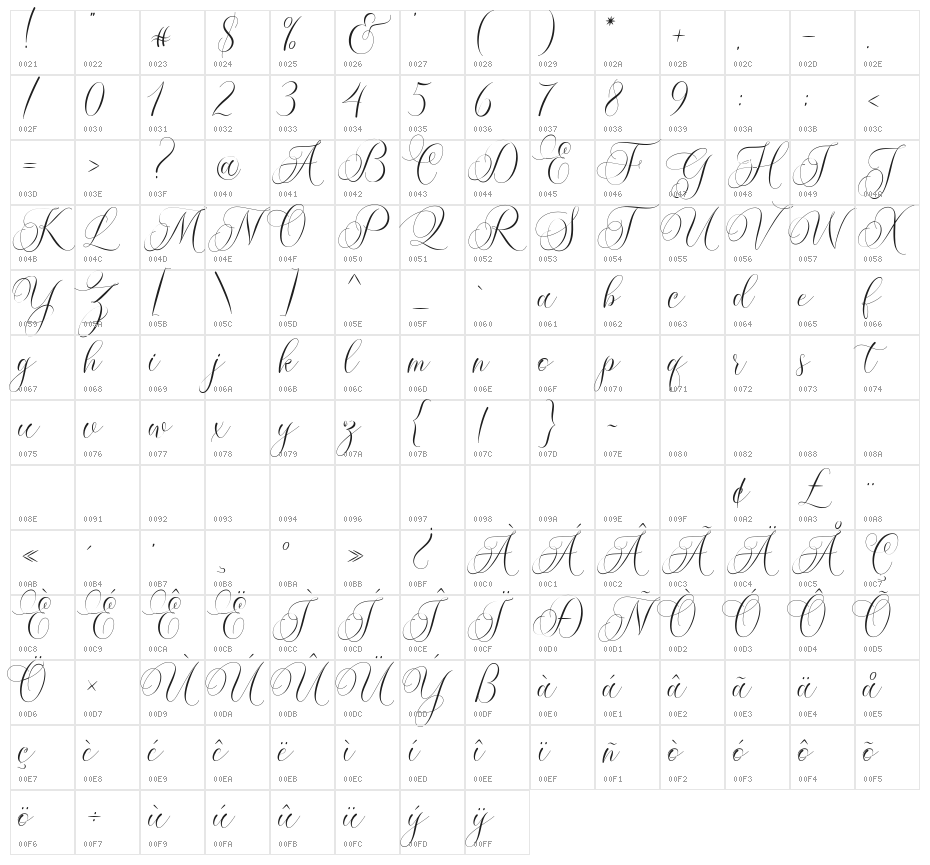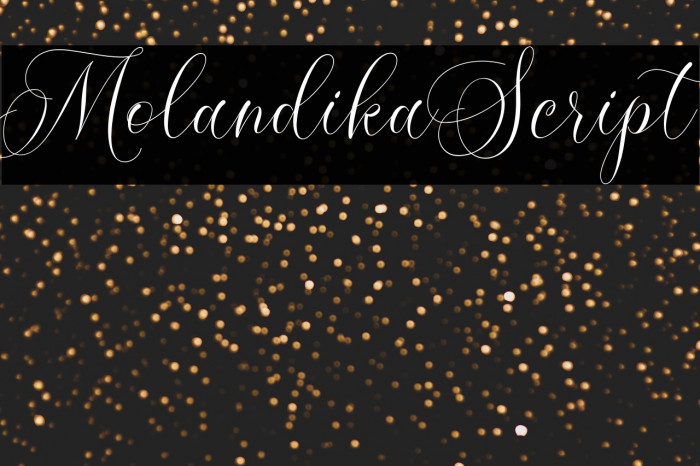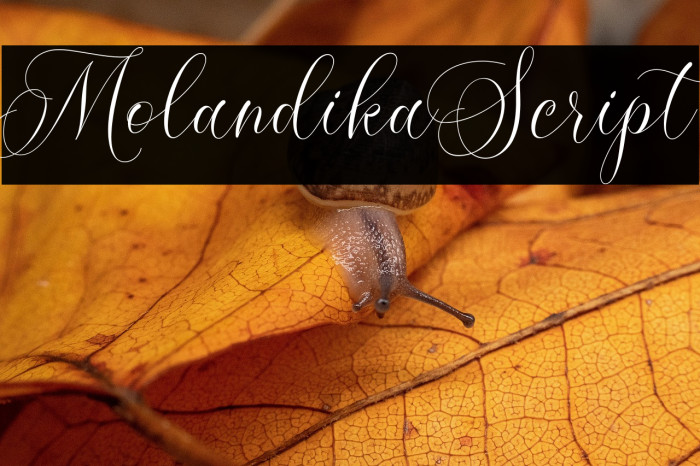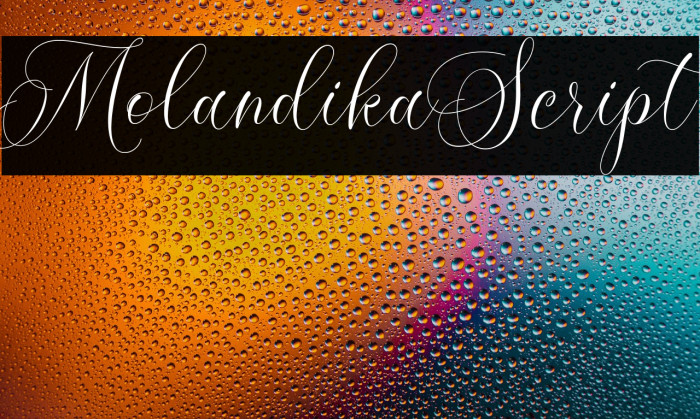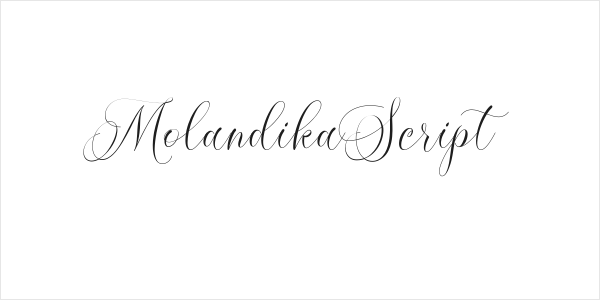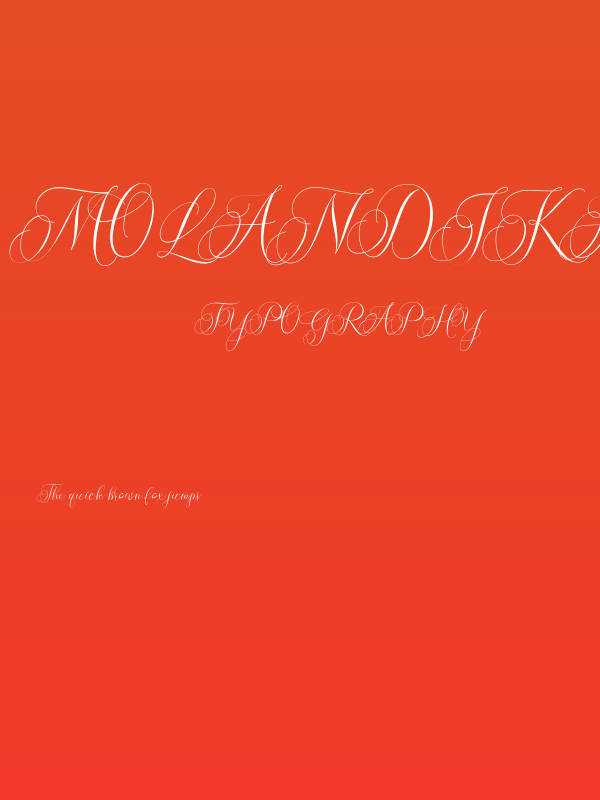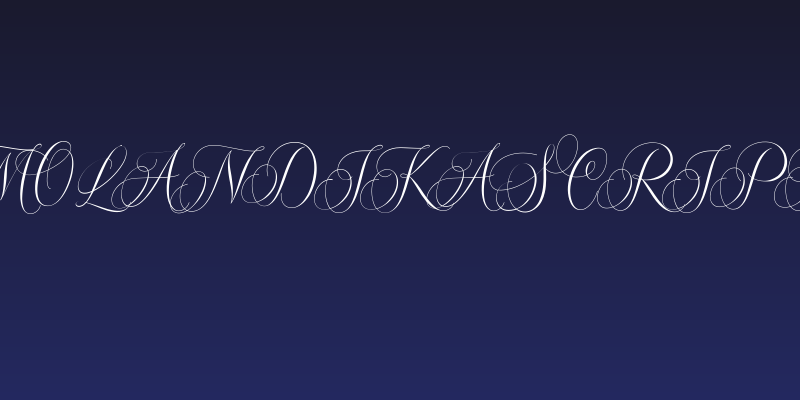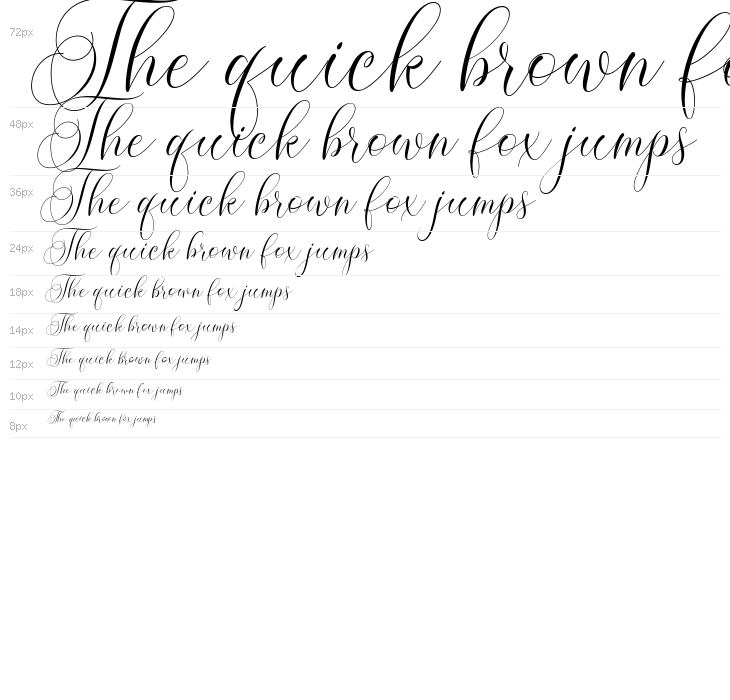
MolandikaScript Font
MolandikaScript Description
This elegant script font features intricate, flowing lines that create a sense of sophistication and grace. The uppercase letters are adorned with elaborate swashes and loops, giving them a decorative flair. The lowercase letters maintain a consistent fluidity, with smooth transitions and delicate curves. The numerals are stylishly designed to match the overall aesthetic, while the special characters add a touch of whimsy. This font is perfect for projects that require a touch of elegance and refinement, such as wedding invitations, luxury branding, or high-end product packaging.
| Overall Style | Elegant |
| Use Case | Logos, Invitations, Branding |
| Proposed Projects | Ideal for wedding invitations, luxury branding, and high-end product packaging. |